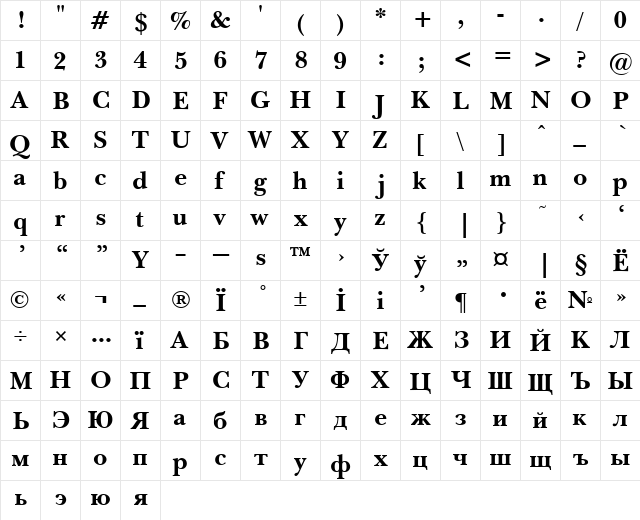
Pasma Bold
Design Context for Pasma Typeface
Pasma takes a measured approach to typography — its balanced proportions and neutral character make it a reliable workhorse for both digital and print work. The heavy weight commands attention and anchors typographic hierarchies.